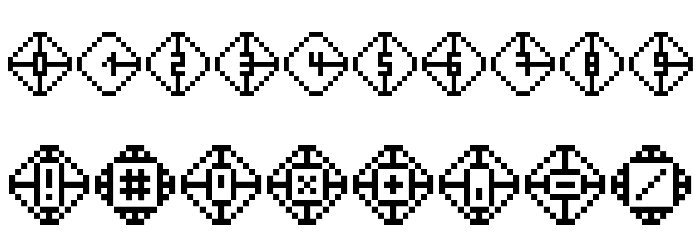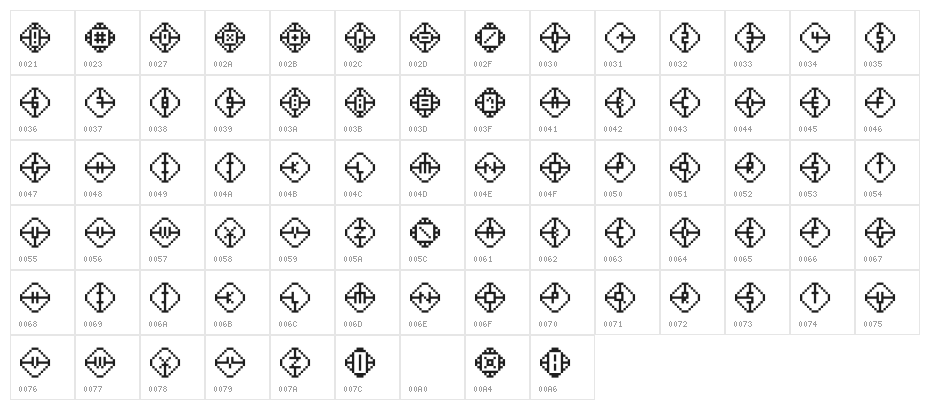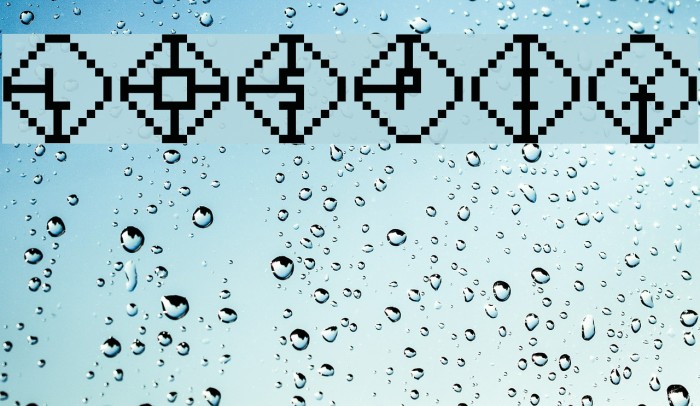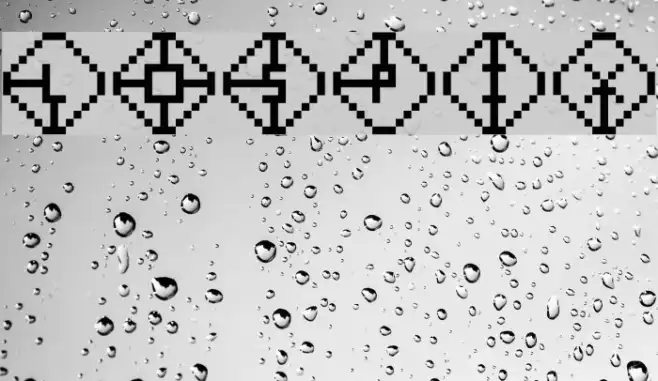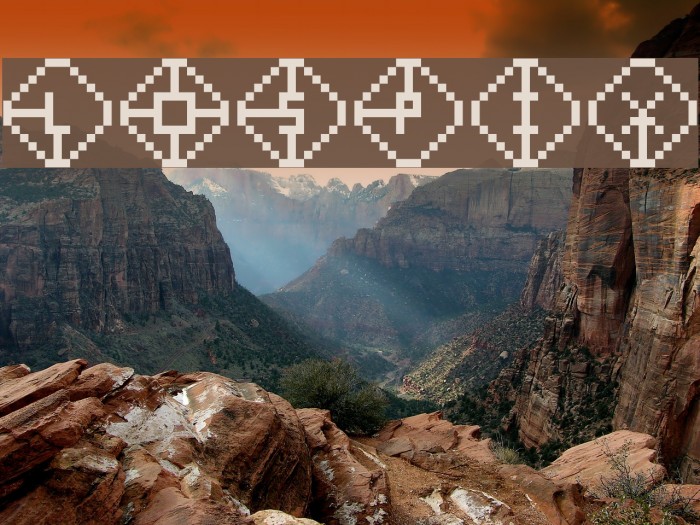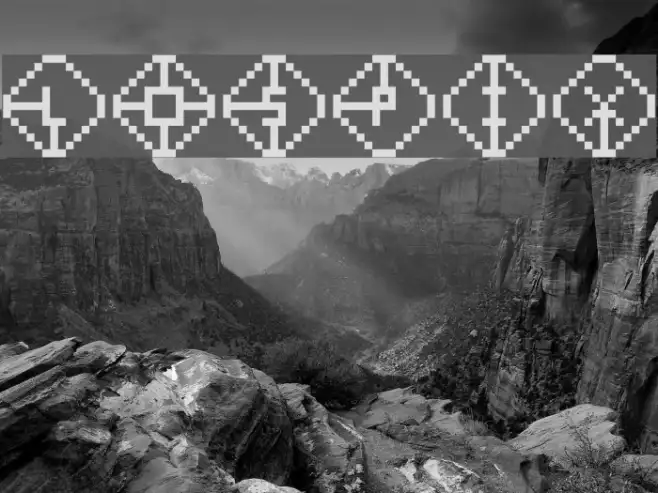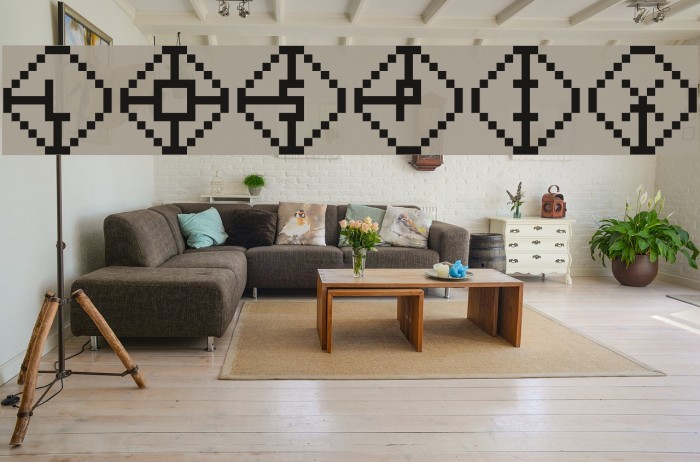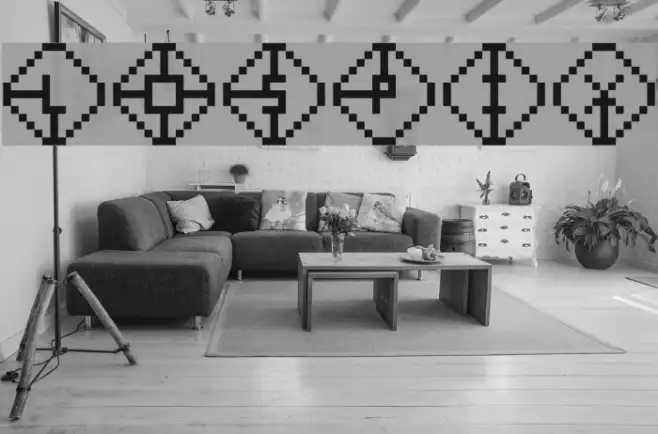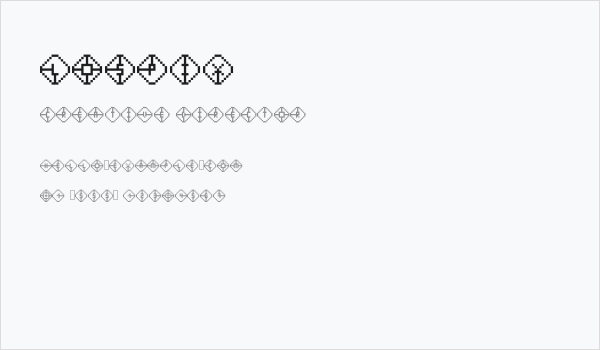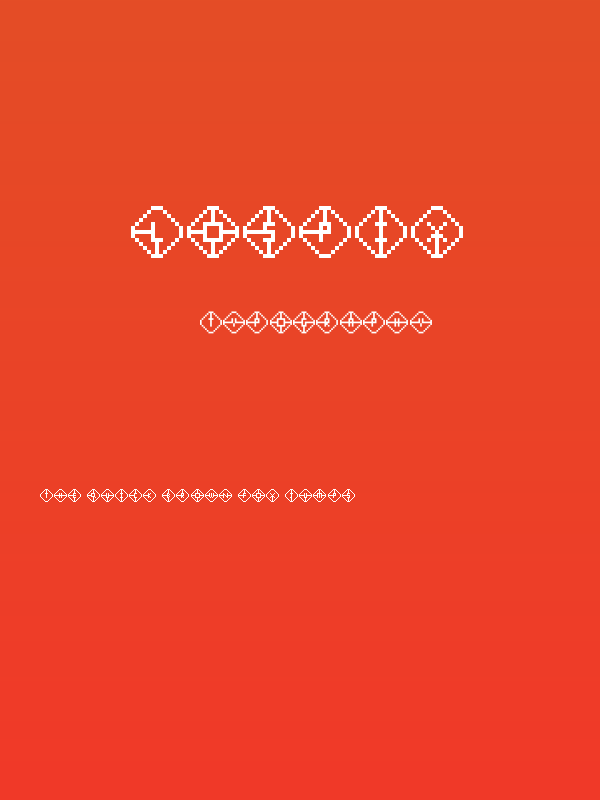
LosPix Font
LosPix Description
This font features a highly decorative and geometric style, with each character enclosed within a diamond shape. The design is pixelated, reminiscent of early digital or video game graphics, and each letter or symbol is crafted with a series of straight lines and angles, creating a unique and intricate appearance. The uniformity of the diamond enclosures gives the font a cohesive look, while the pixelated nature adds a retro and nostalgic feel. This font is not designed for readability in body text but rather for artistic or thematic use where its distinctive style can be showcased.
| Overall Style | Retro, Digital, Geometric |
| Use Case | Logos, Posters, Digital Art |
| Proposed Projects | This font is perfect for retro-themed designs, video game graphics, digital art projects, or any creative work that requires a unique and eye-catching typeface. |